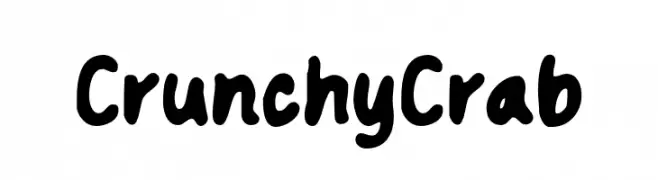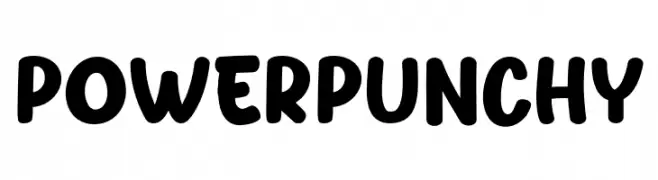
( Fonts by MJType )
A bold, playful font with thick, rounded strokes and a hand-drawn appearance.
( Fonts by idebareng )
A playful, bold font with rounded, chunky letters and a whimsical style.
( Fonts by MJType )
A playful, bold, hand-drawn font with rounded strokes and a whimsical style.
( Fonts by Type Factory )
A dynamic, slanted font with a textured, modern design.
( Fonts by Edignwn Type )
A bold, playful font with a hand-drawn, rounded style.
( Fonts by Eko Bimantara )
Bold, playful display font with a hand-drawn look.
( Fonts by Jordan Ogawa )
Playful handwritten font with a casual vibe.
( Fonts by DN Creative )
Playful handwritten font with rounded edges.
( Fonts by Duncan Campbell )
Casual handwritten font with a playful style.
( Fonts by Hawtpixel )
A bold, balloon-like decorative font with rounded, playful shapes.